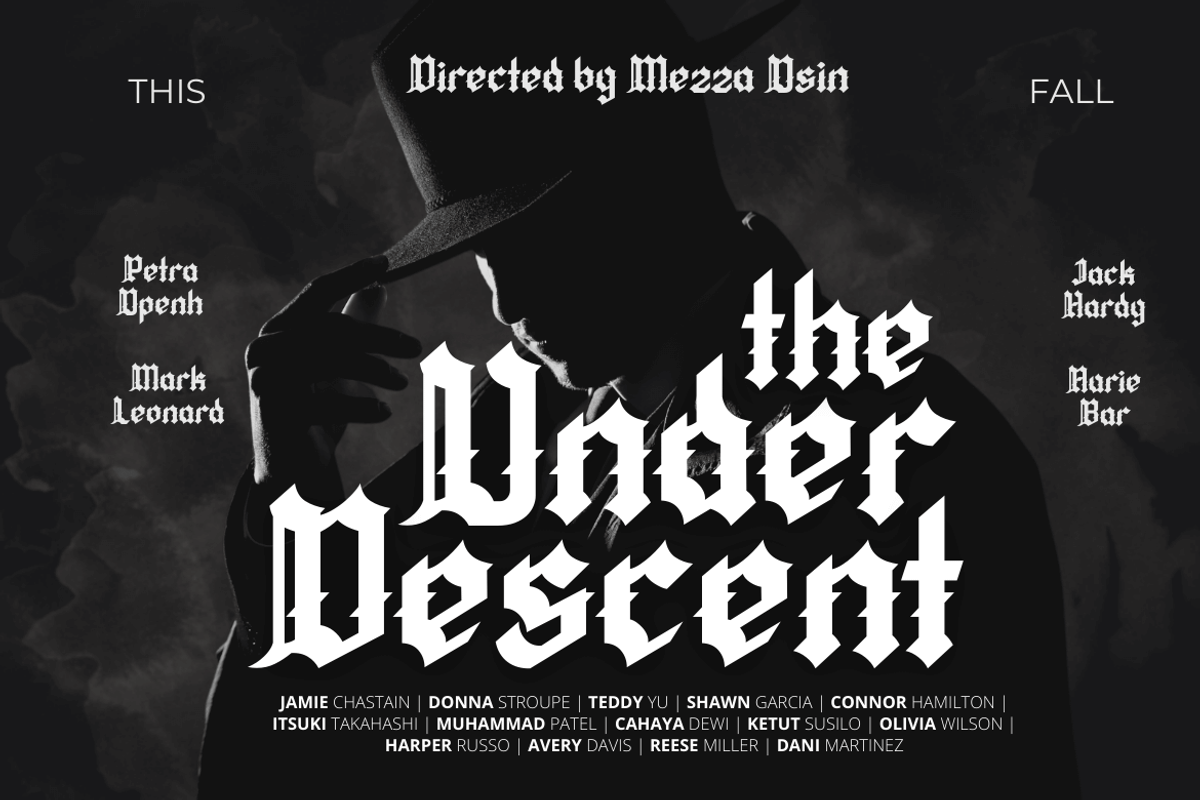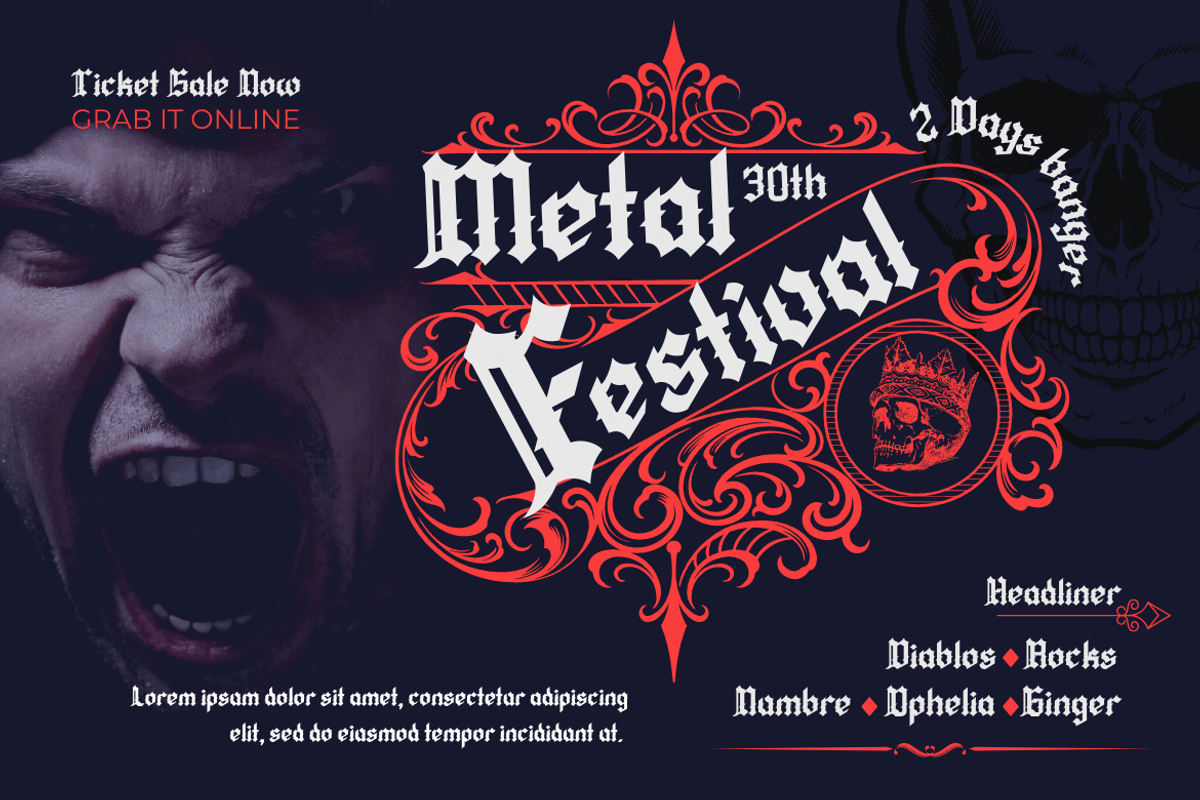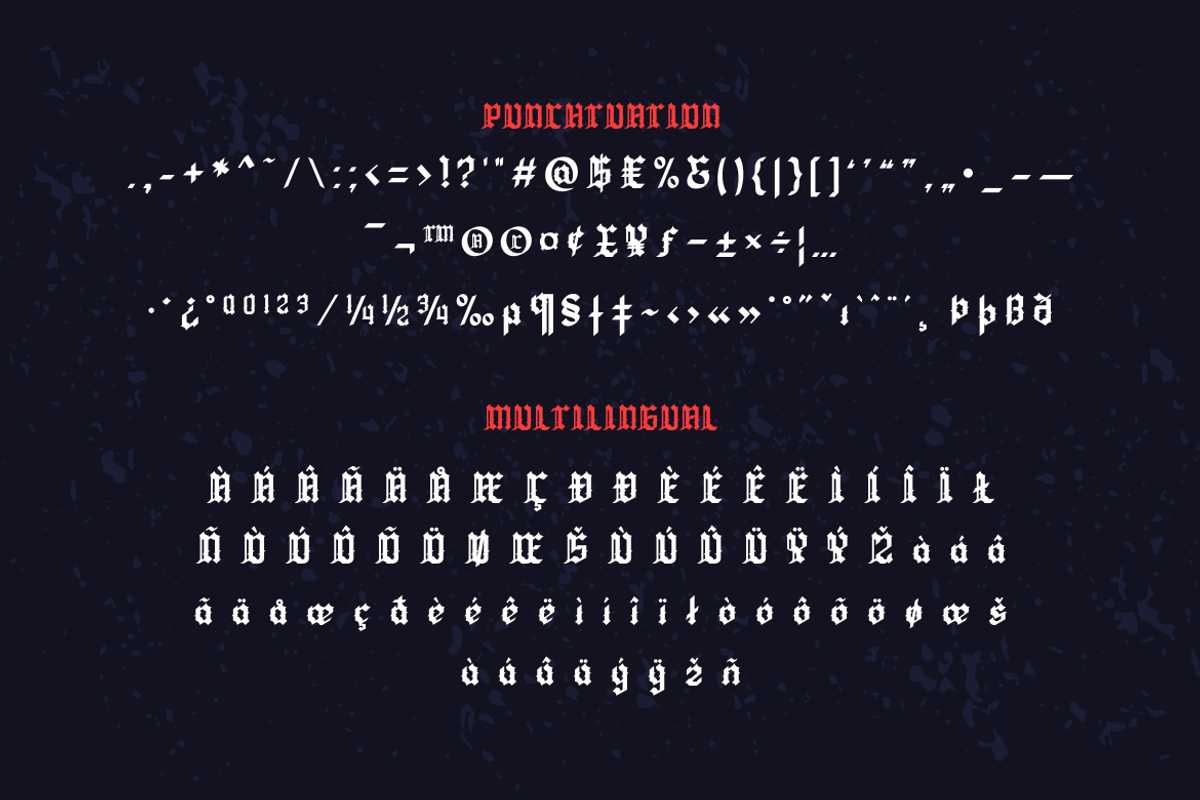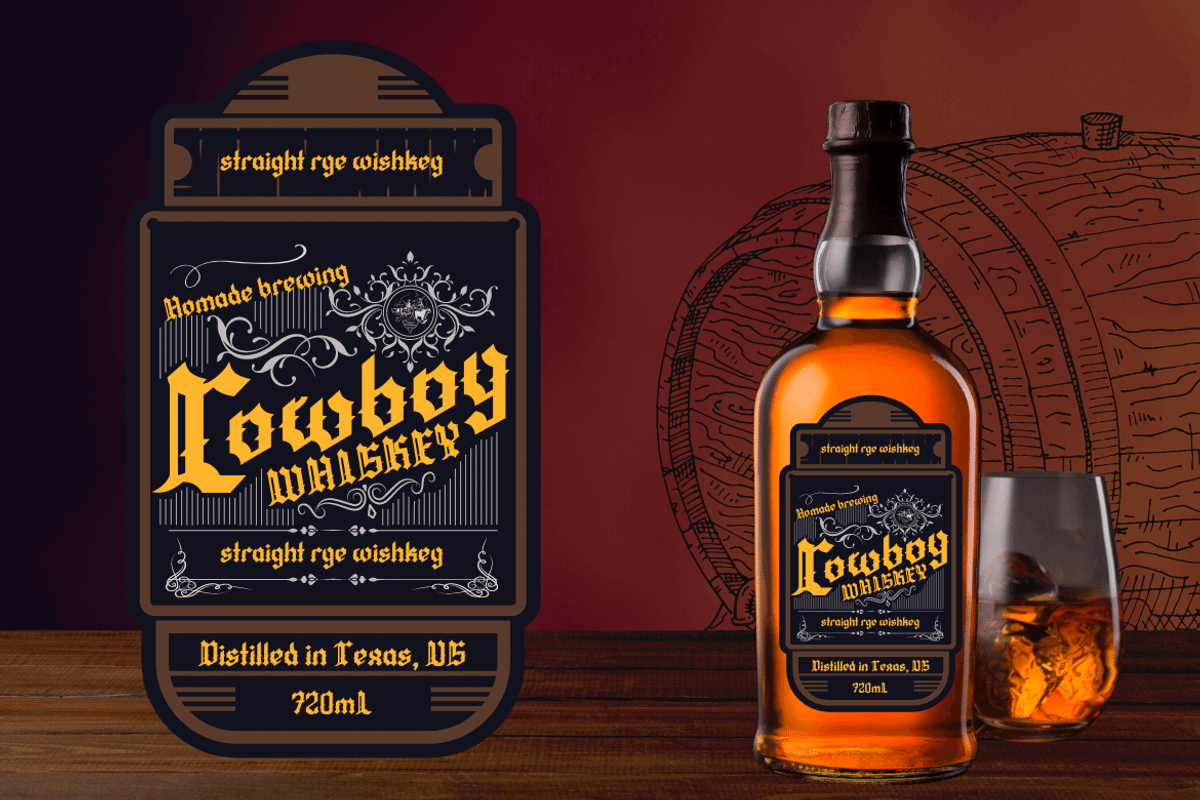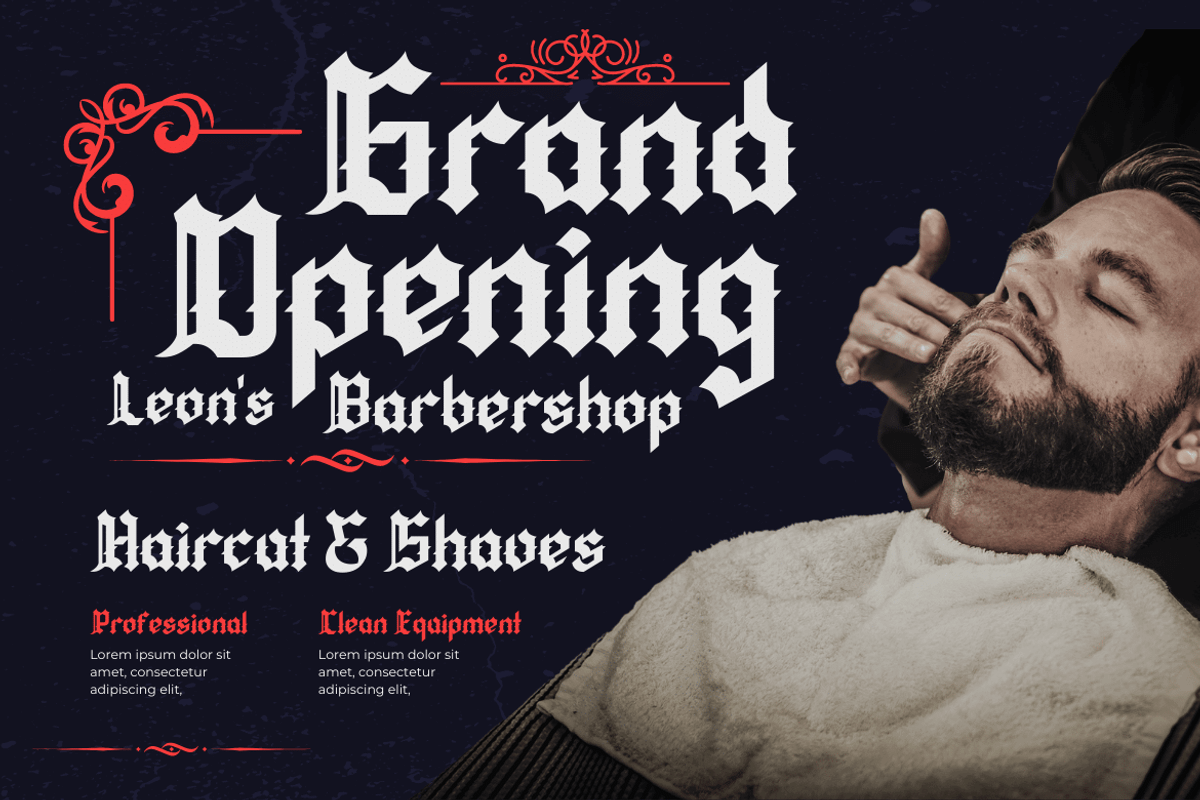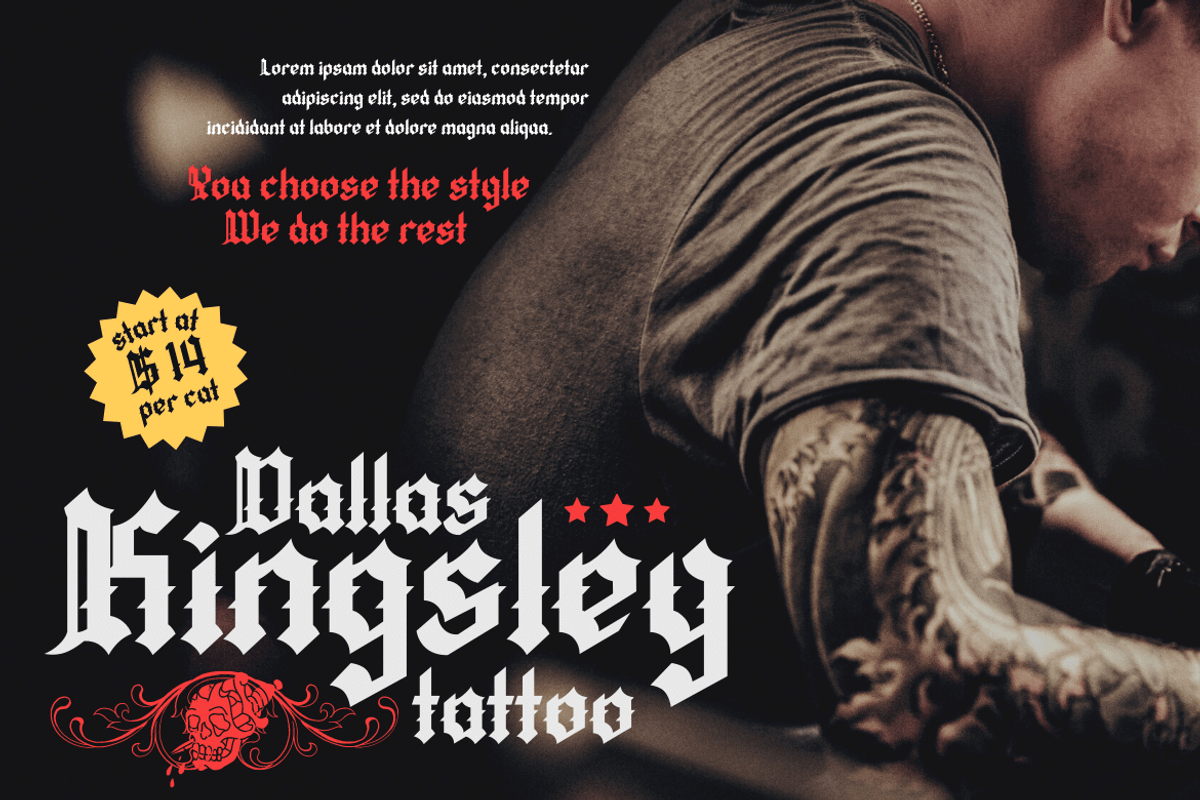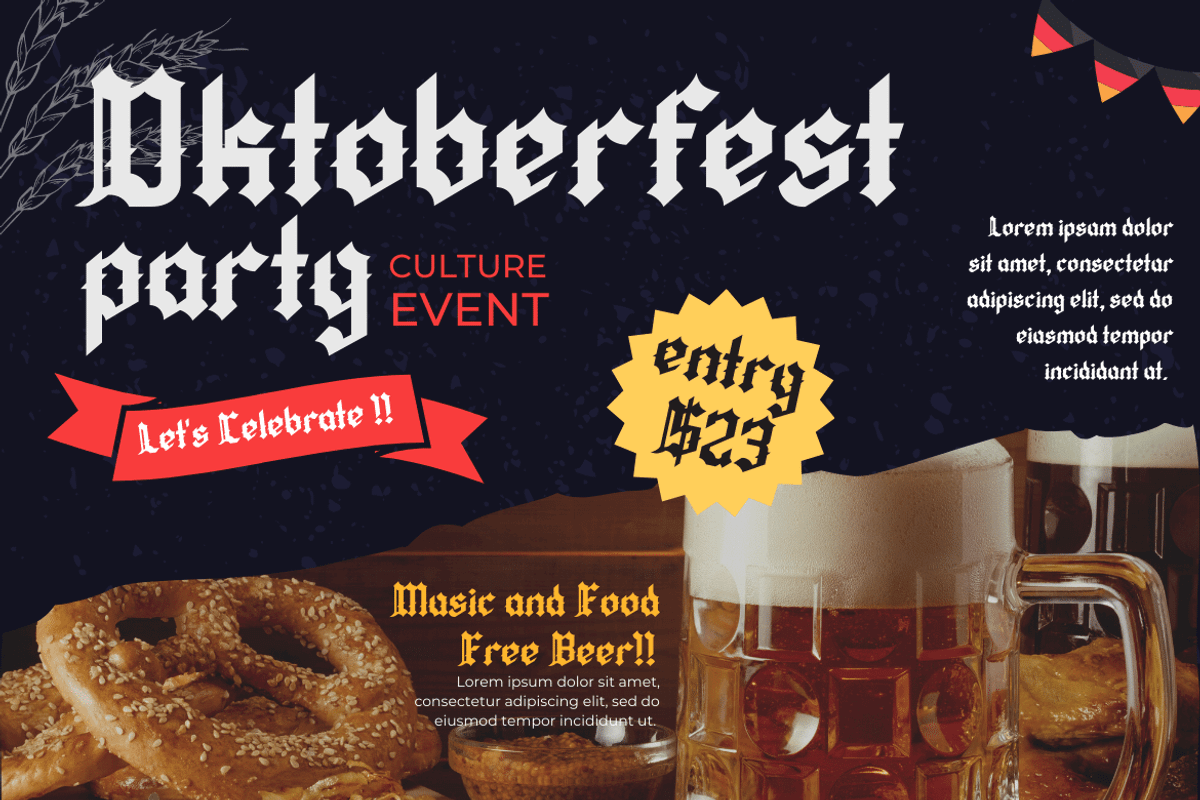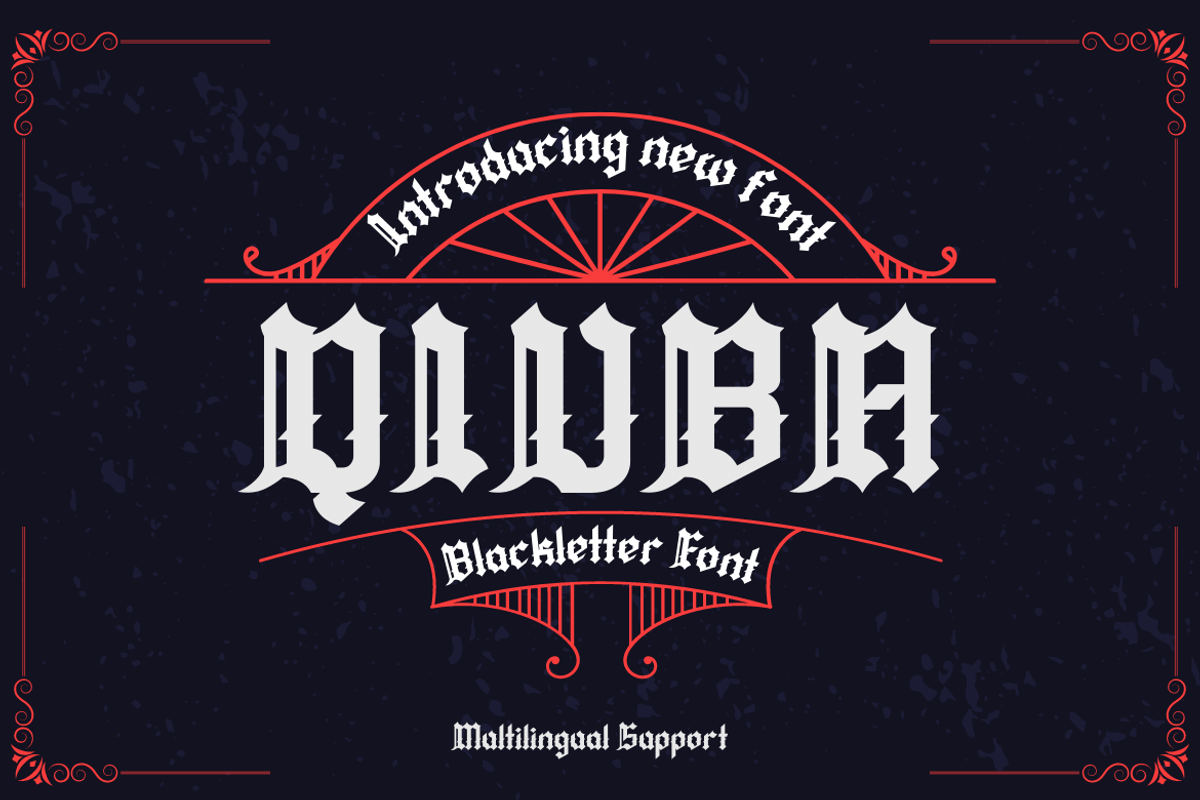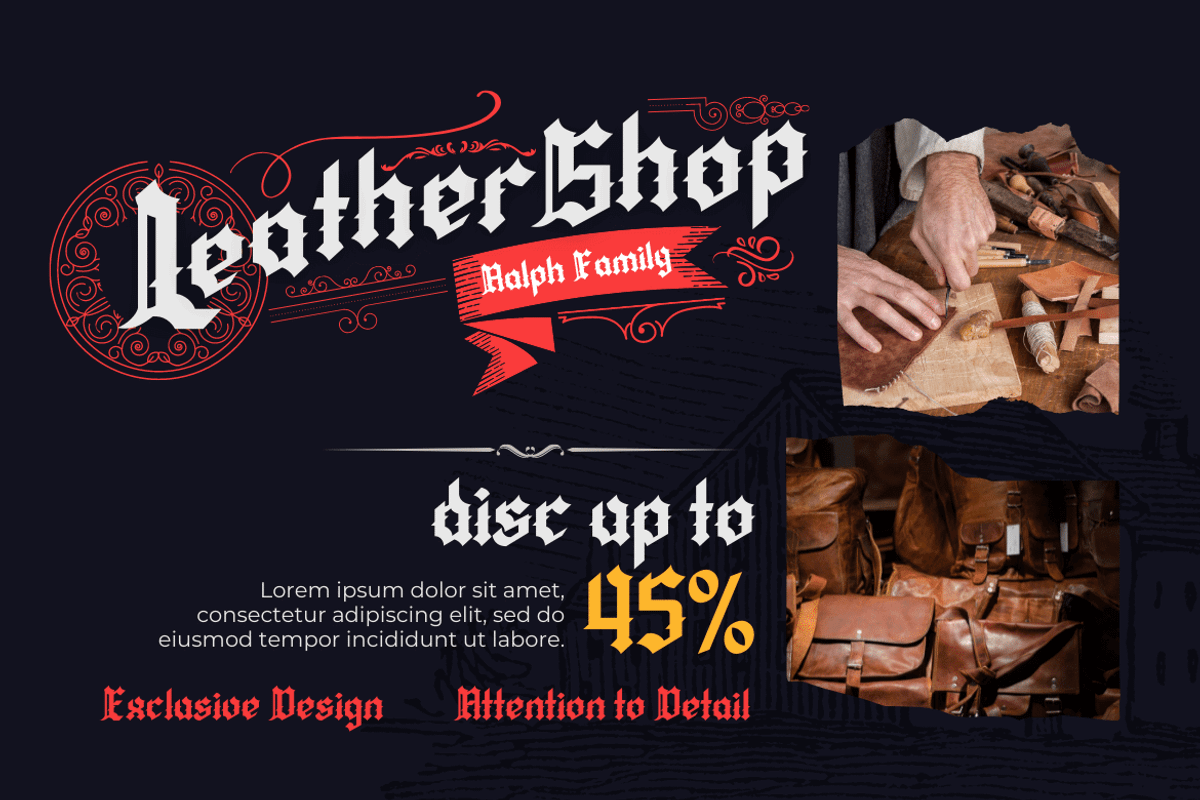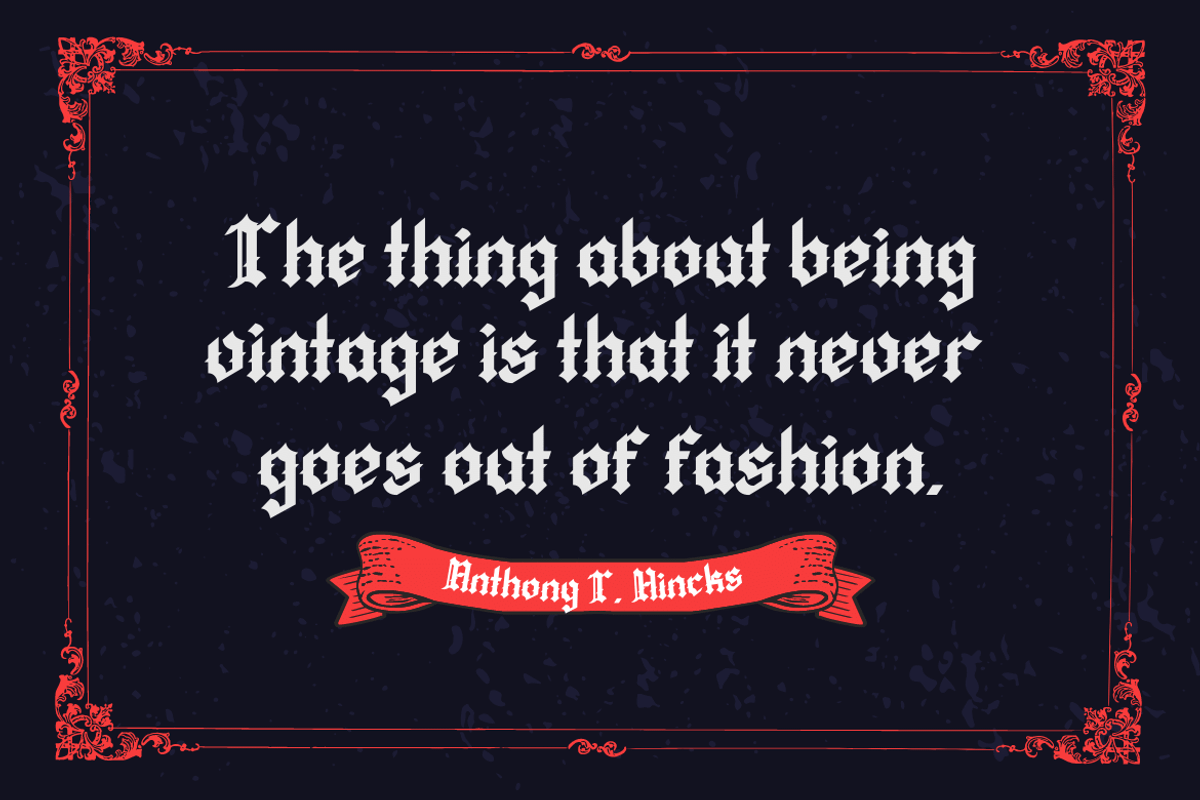
QIUBA Blackletter font
Fonts can make or break a design, so why not use the best? The ideal Gothic font is QIUBA! You should use this professional-grade font to create labels, retro, stamps, badges, Oktoberfest posters, and other things. It’s ideal for any project that calls for a little gothic flair. Plus, it comes in a variety of beautiful, harmonious forms so you can use the perfect word for your project.
This Blackletter font is the way to go whether you’re looking for a font for your logo, label, badge, or your newest music video or movie!